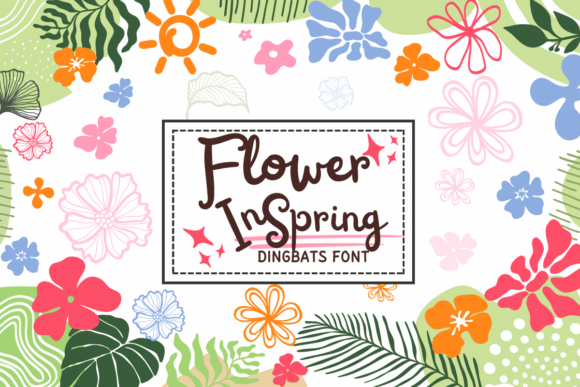
Flower in Spring Font: Elevate Your Creative Projects with this Charming Dingbats Font
As the seasons change and spring arrives, the world is filled with vibrant colors and beautiful blooms. Inspired by the beauty of nature, the Flower in Spring font brings a touch of elegance and whimsy to your creative projects. This stunning dingbats font features a unique sketched style that adds a personal touch to any design. In this article, we’ll explore the features and benefits of Flower in Spring font, and how it can enhance your creative projects, from wedding invitations to logos and more.
What is Flower in Spring Font?
Flower in Spring is a dingbats font that boasts a charming sketched style. The font is designed to resemble hand-drawn illustrations, giving it a warm and inviting feel. With its delicate lines and intricate details, Flower in Spring font is perfect for adding a touch of sophistication to your designs.
- Unique Sketched Style: The font features a distinctive sketched style that sets it apart from other dingbats fonts.
- Hand-Drawn Illustrations: The font is designed to resemble hand-drawn illustrations, giving it a personal and whimsical touch.
- Elegant and Whimsical: Flower in Spring font combines elegance and whimsy, making it perfect for a wide range of creative projects.
How to Use Flower in Spring Font in Your Creative Projects
Flower in Spring font is incredibly versatile and can be used in a variety of creative projects. Here are some ideas to get you started:
- Wedding Invitations: Add a touch of elegance to your wedding invitations with Flower in Spring font. The font’s delicate lines and intricate details make it perfect for formal and informal wedding invitations alike.
- DIY and Crafts: Use Flower in Spring font to add a personal touch to your DIY projects and crafts. From scrapbooking to card-making, this font is sure to inspire your creativity.
- Decorations: Create beautiful decorations for your home or event with Flower in Spring font. Use the font to design custom banners, garlands, and more.
- Logos and Branding: Flower in Spring font can also be used to create stunning logos and branding materials. The font’s unique style makes it perfect for businesses that want to stand out from the crowd.
The Benefits of Using Flower in Spring Font
So why choose Flower in Spring font for your creative projects? Here are just a few benefits of using this beautiful dingbats font:
- Unique and Eye-Catching: Flower in Spring font is sure to grab attention with its unique and eye-catching design.
- Versatile: The font can be used in a wide range of creative projects, from wedding invitations to logos and more.
- Elegant and Whimsical: Flower in Spring font combines elegance and whimsy, making it perfect for projects that require a touch of sophistication and personality.
Tips for Using Flower in Spring Font
Here are a few tips for using Flower in Spring font in your creative projects:
- Experiment with Colors: Flower in Spring font looks stunning in a variety of colors. Experiment with different hues and combinations to find the perfect look for your project.
- Mix and Match: Don’t be afraid to mix and match Flower in Spring font with other fonts and design elements. The font’s unique style makes it perfect for pairing with other fonts and graphics.
- Pay Attention to Details: Flower in Spring font features intricate details and delicate lines. Pay attention to these details when using the font in your designs.
Flower in Spring font is a beautiful and versatile dingbats font that can elevate your creative projects to the next level. With its unique sketched style and elegant, whimsical design, this font is perfect for a wide range of projects, from wedding invitations to logos and more. Whether you’re a seasoned designer or just starting out, Flower in Spring font is sure to inspire your creativity and add a touch of sophistication to your designs.